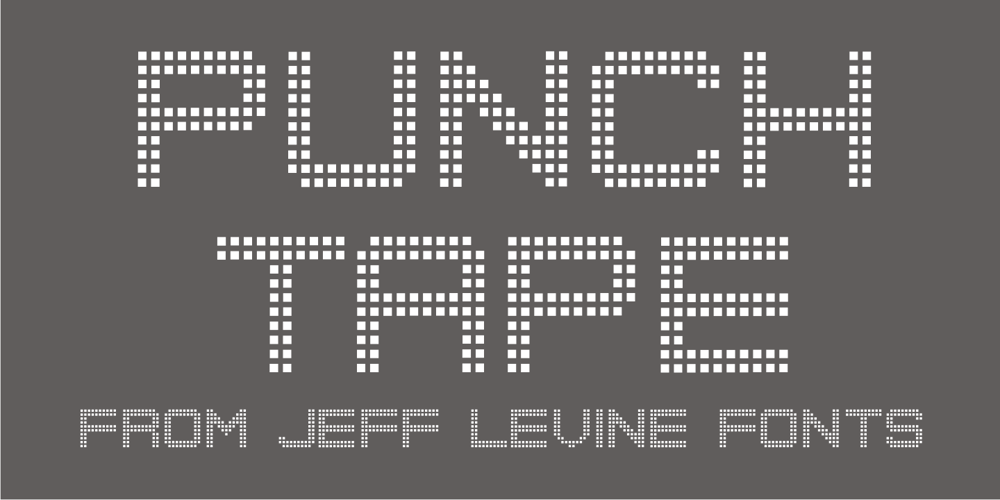
Punch Tape JNL
Punch Tape JNL font
Punch Tape JNL Font Family was designed by Jeff Levine and published by Jeff Levine. Punch Tape JNL contains 1 styles and family package options. Punch Tape JNL emulates the old-style pin-punched paper tapes that were used in everything from ticker tapes to moving electronic signage to early digital typesetting equipment. Pin punch characters were also used in the early days of banking as a secure way of canceling a check so that it was rendered useless if re-submitted. In this version, the “dots” are square rather than round.